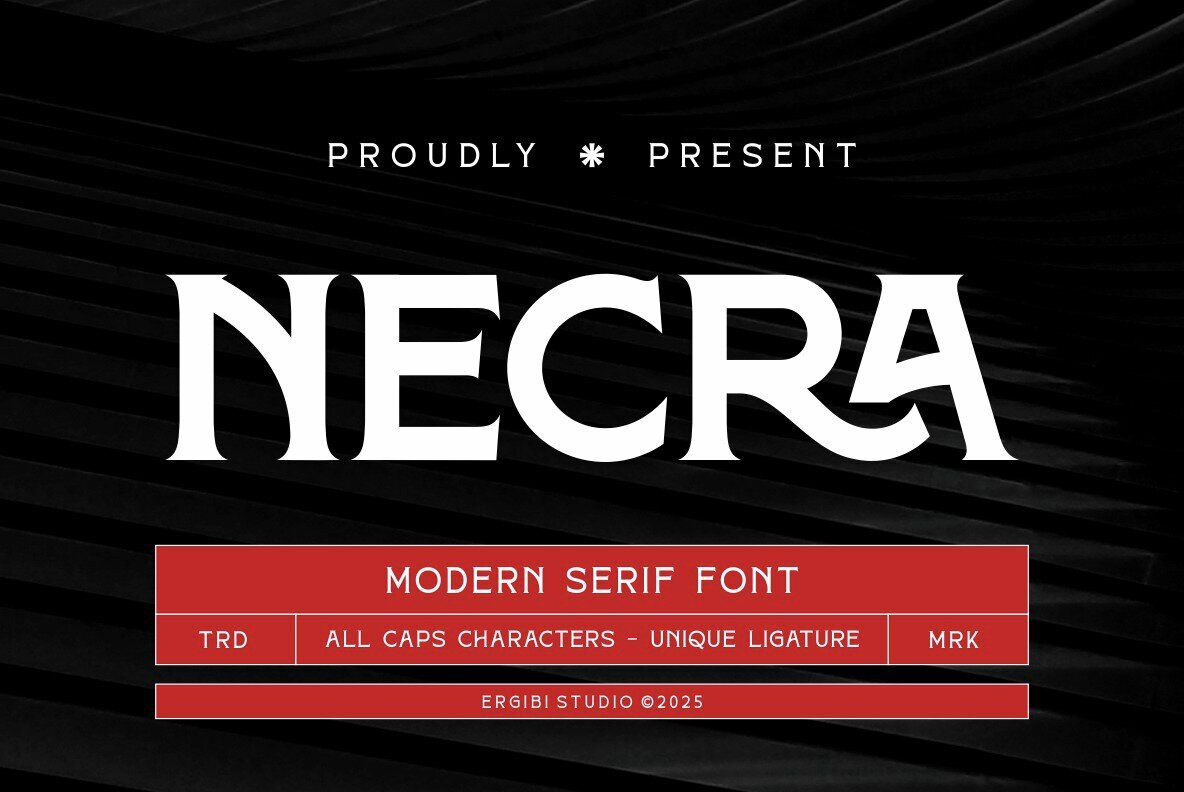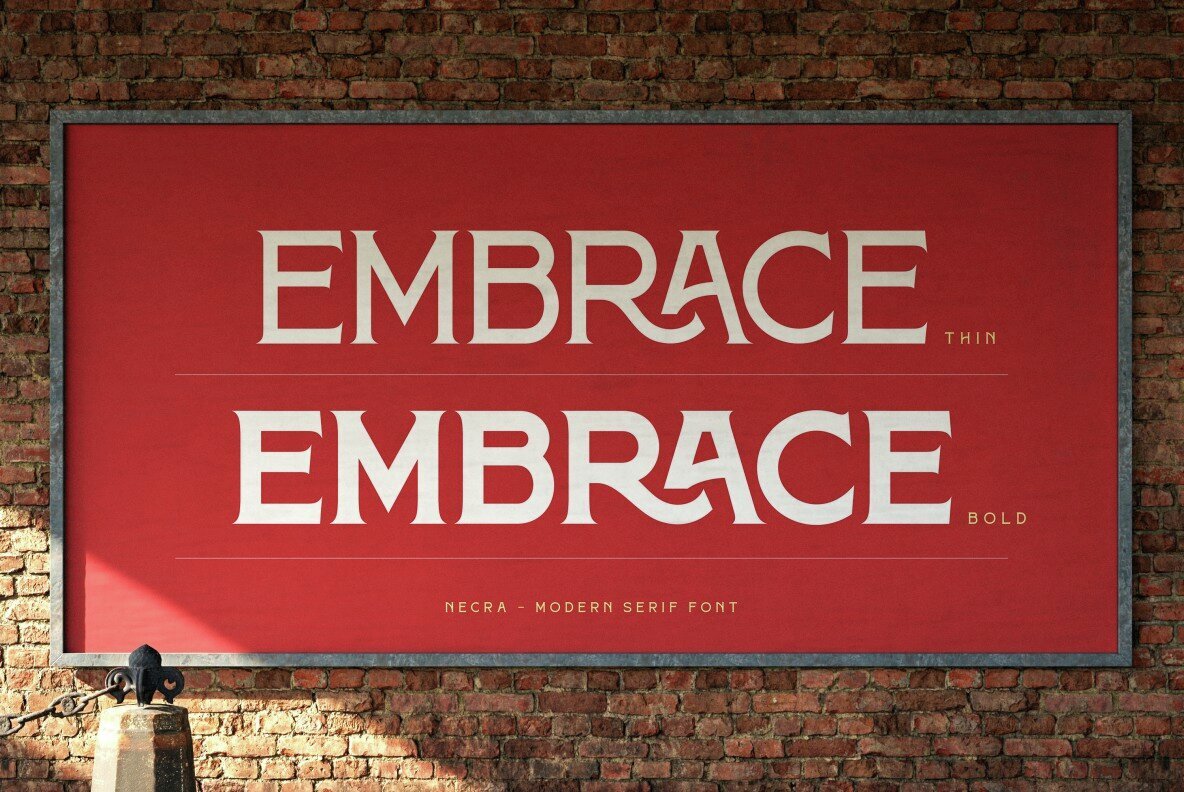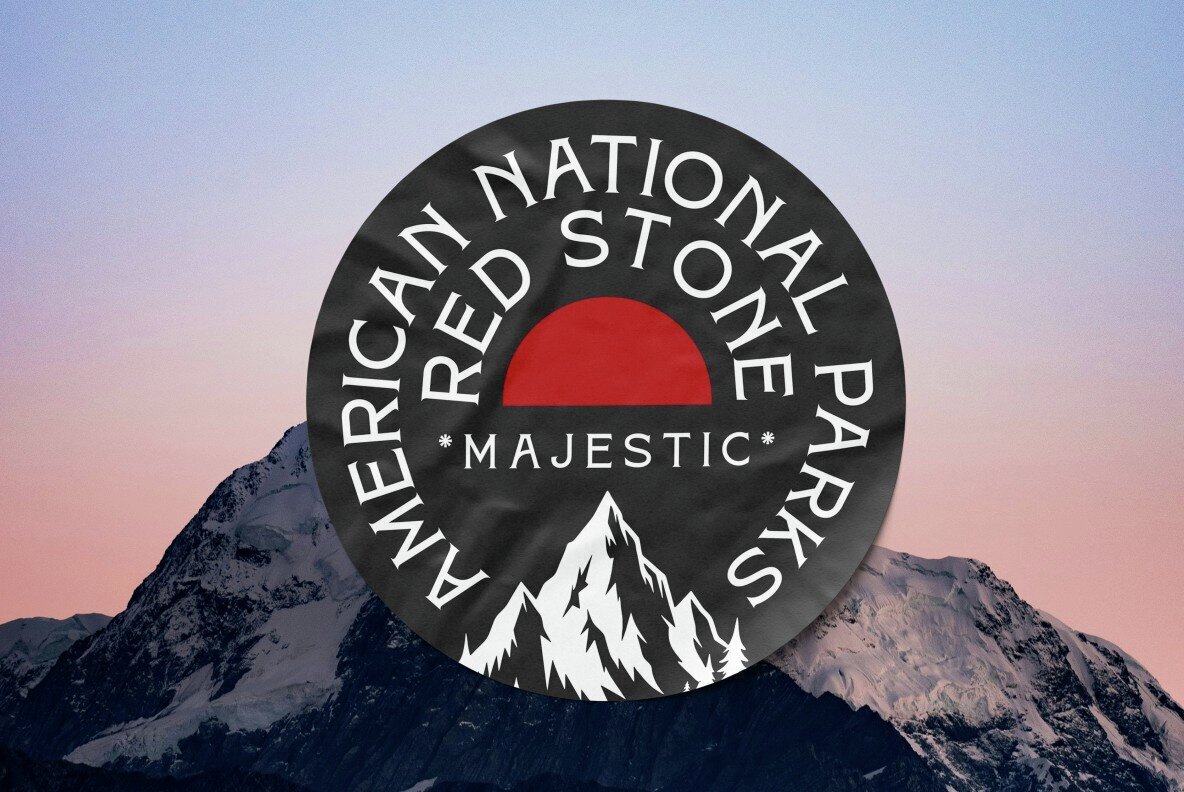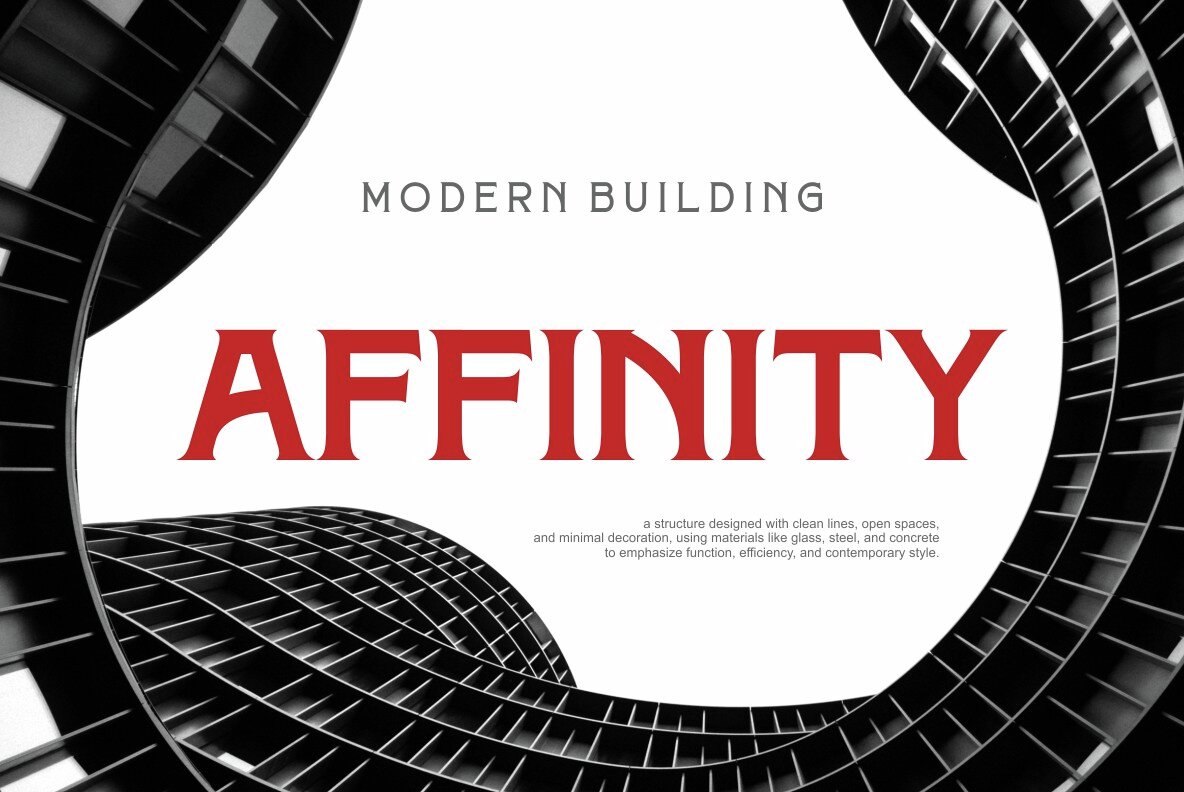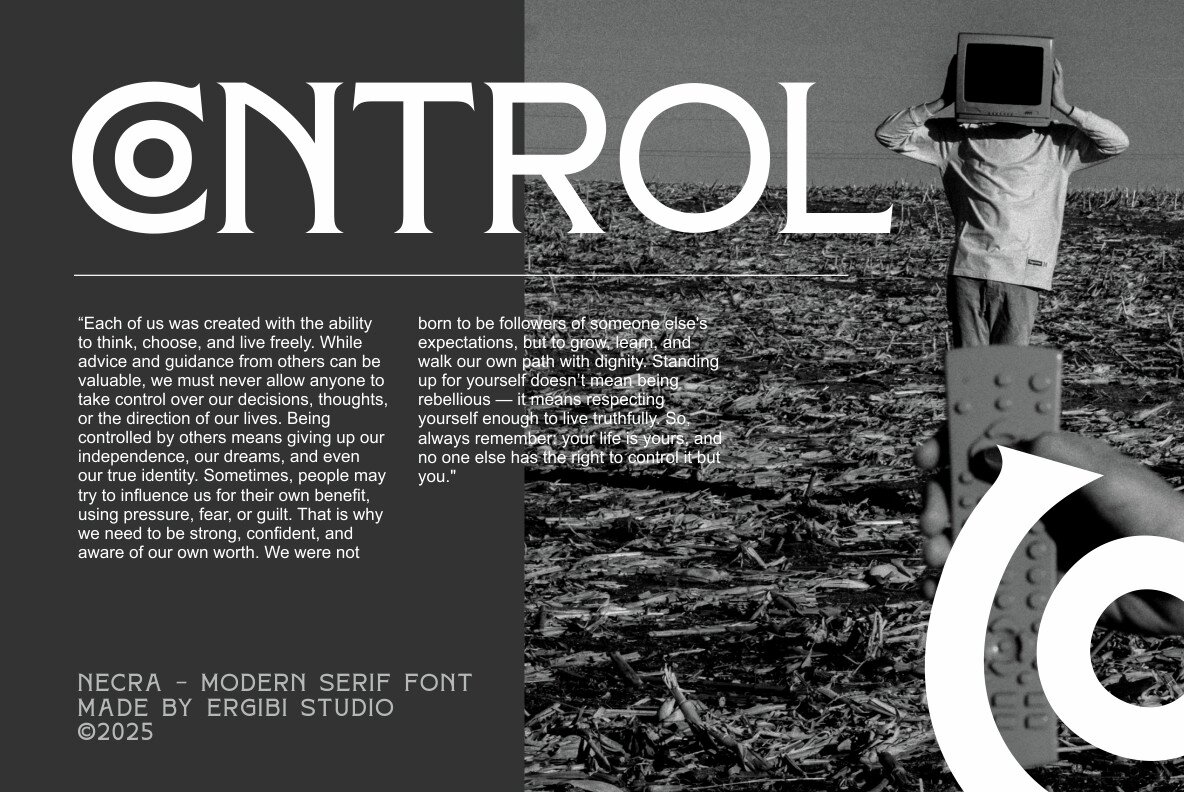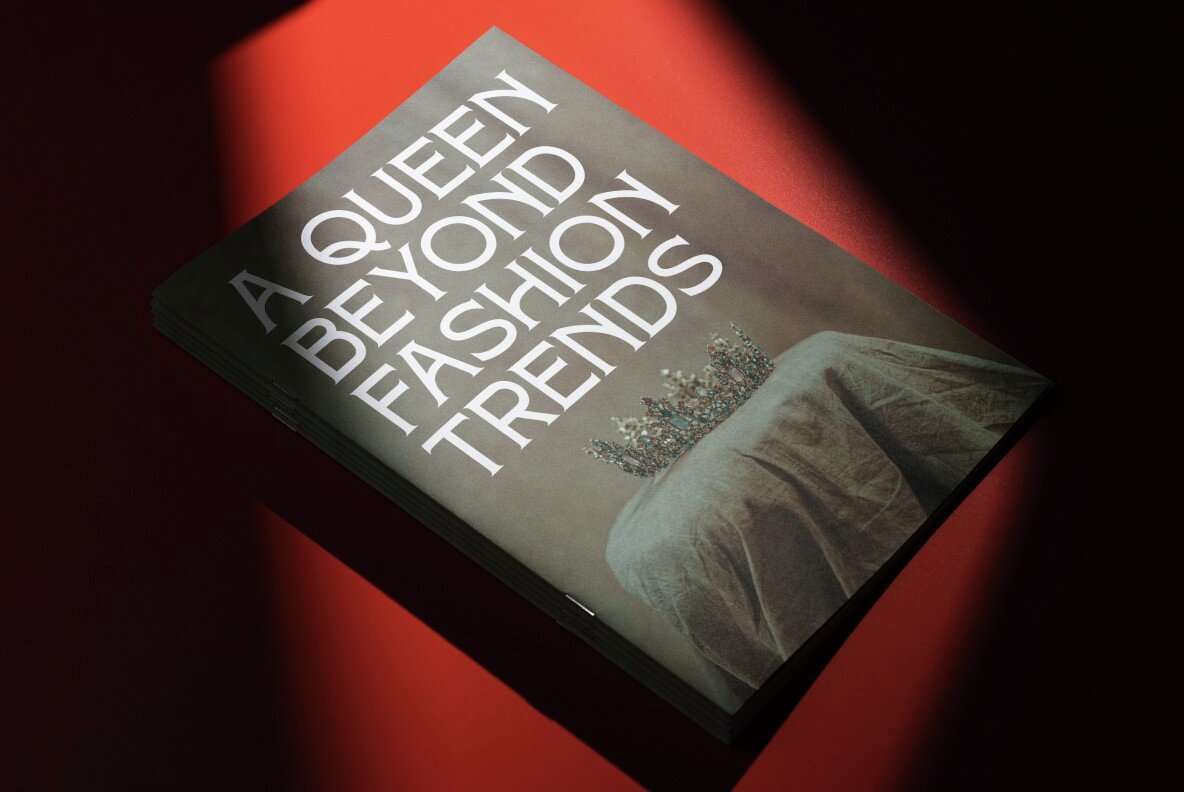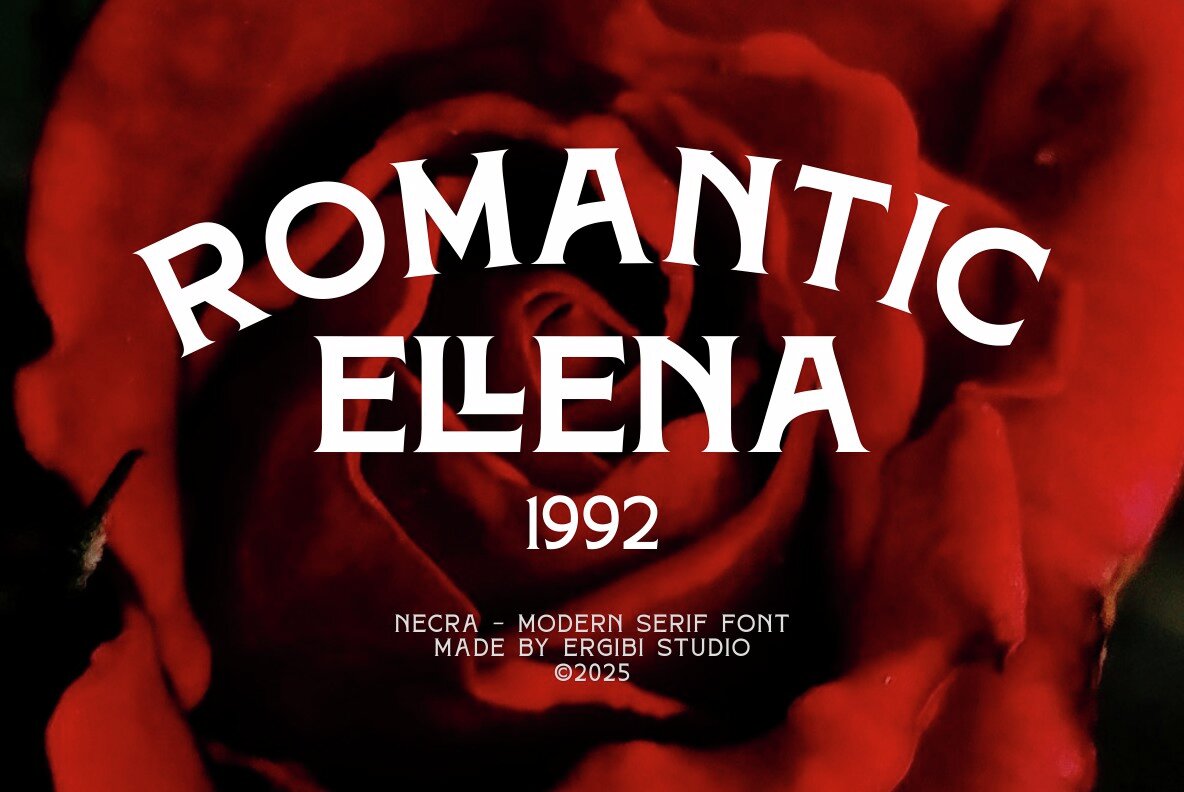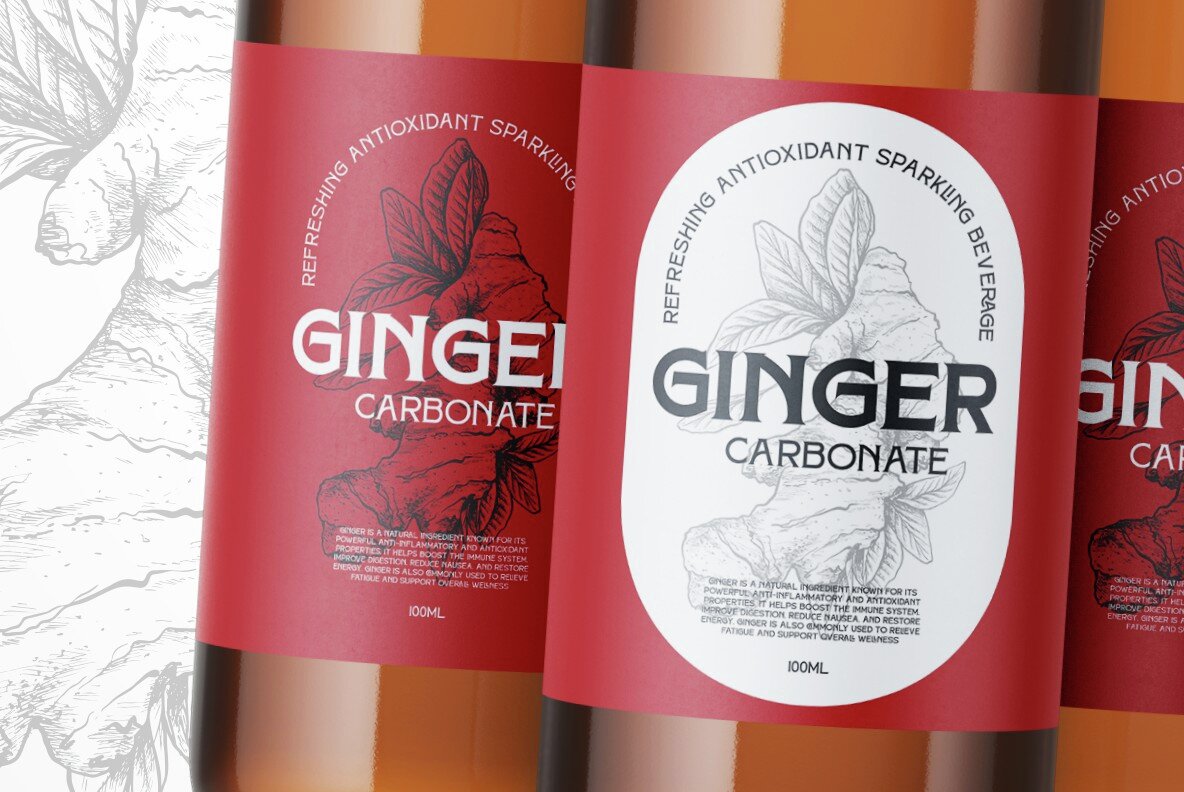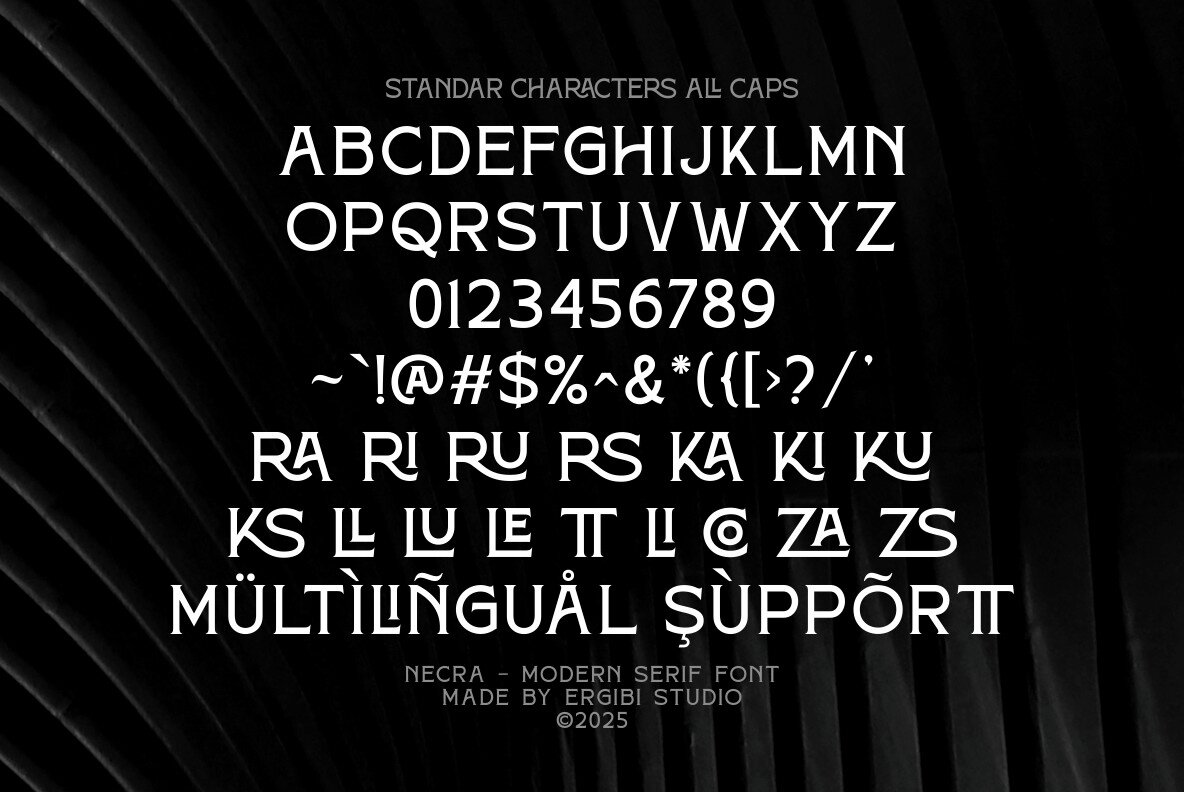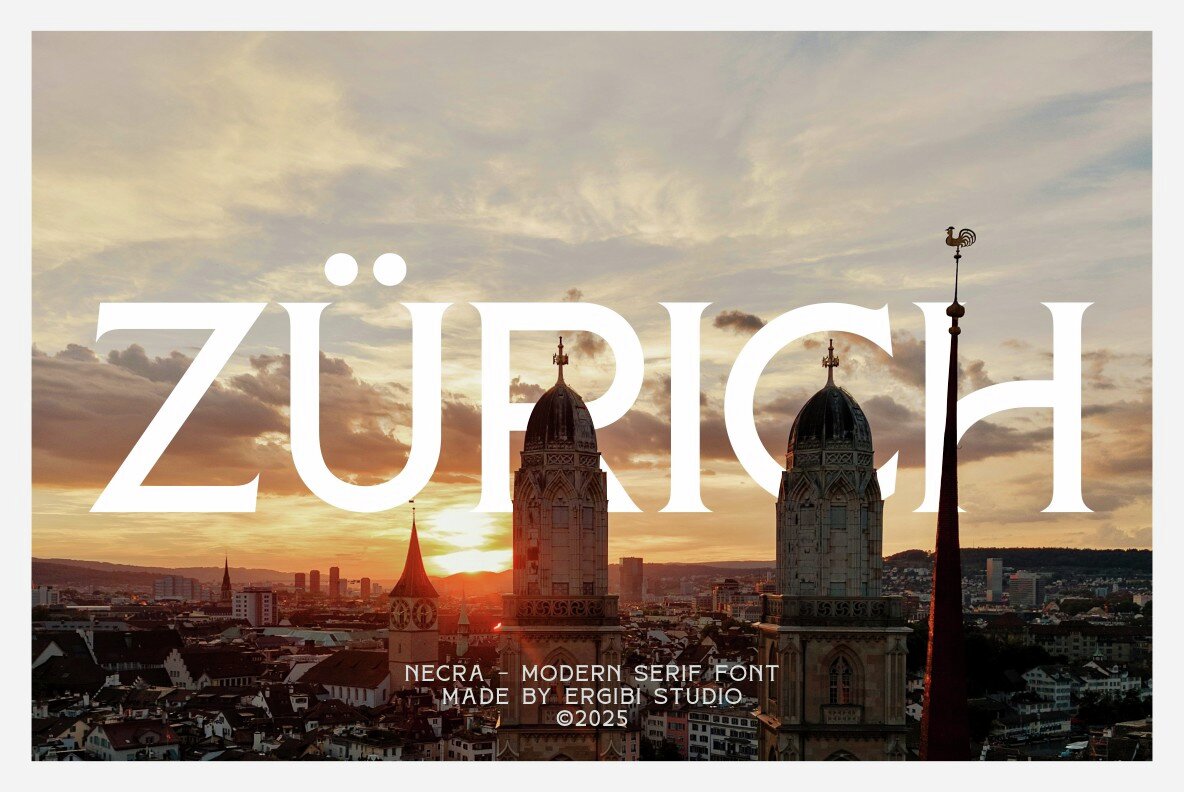
Necra Font
Necra is a sophisticated serif typeface that marries timeless elegance with sharp modernity. With its clean lines and striking contrast, Necra is an ideal choice for creating impactful designs, whether it be for headlines, logos, editorial layouts, branding, or packaging. Its stylish letterforms offer a perfect blend of luxury and authority, making it versatile for both grand and minimalistic aesthetics.Modern Serif Typeface: Necra